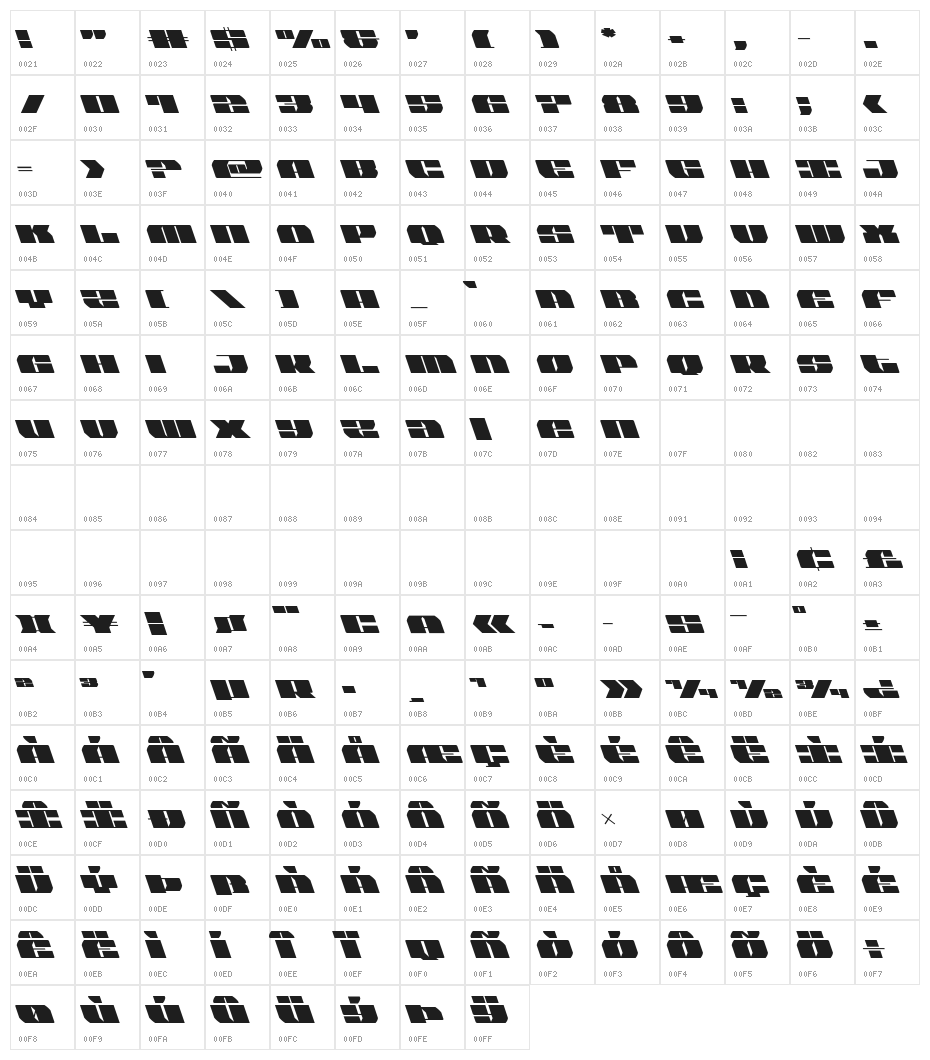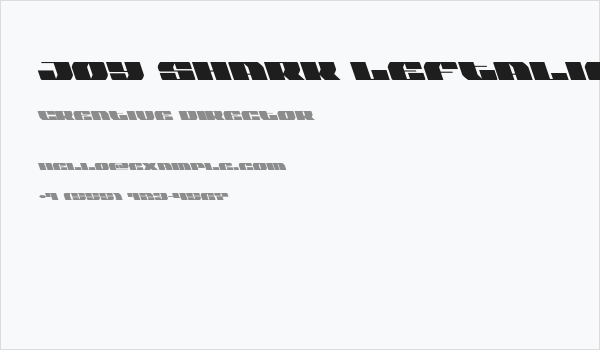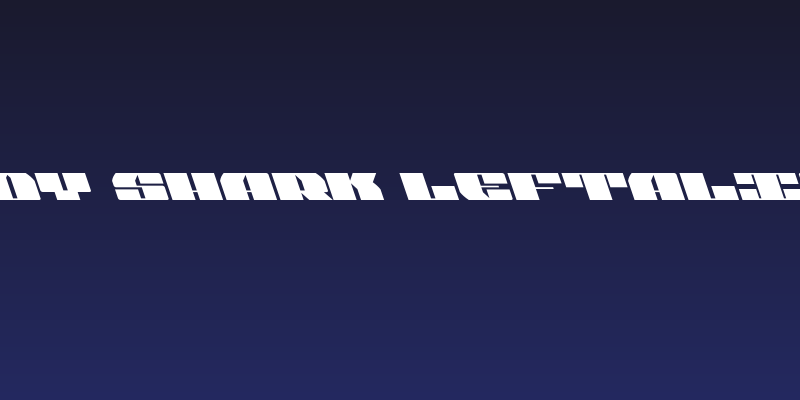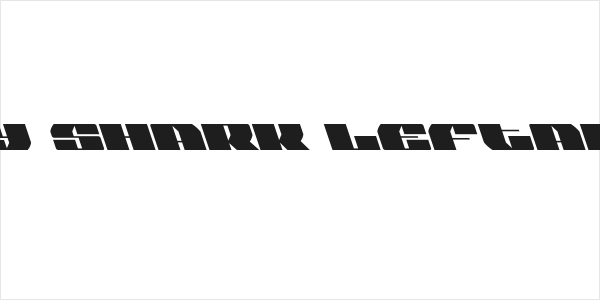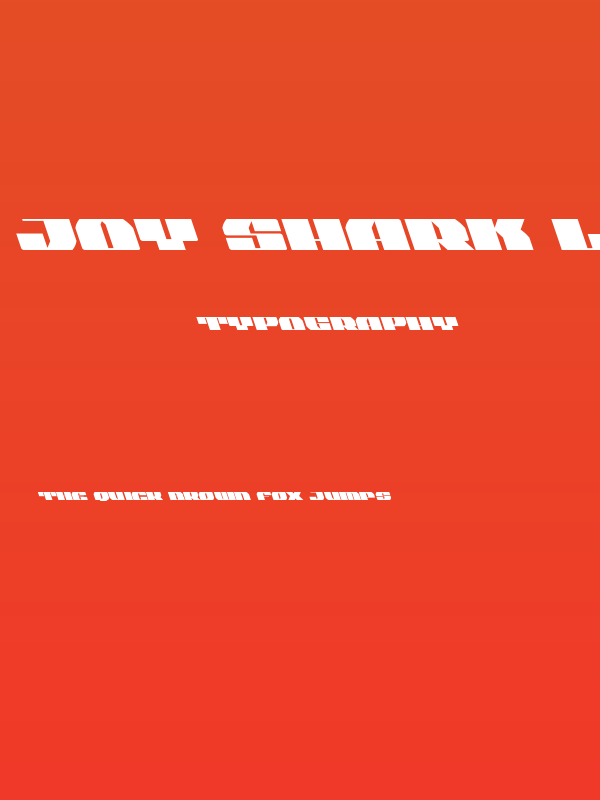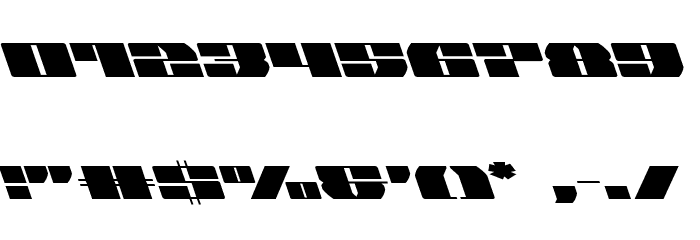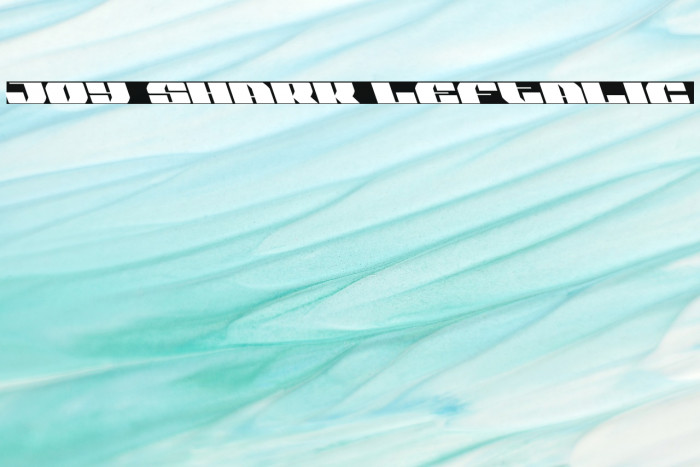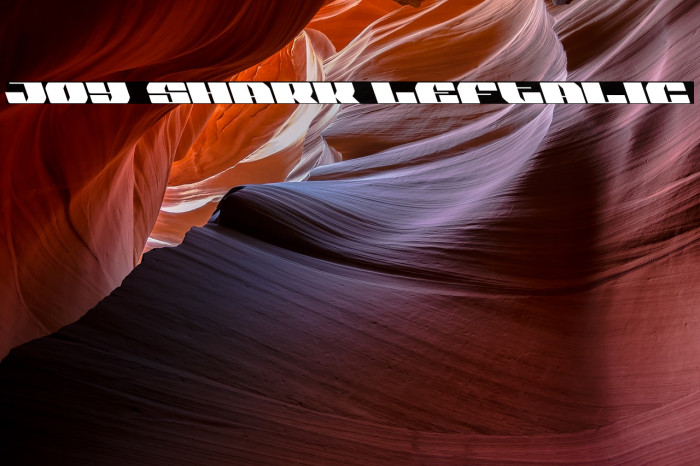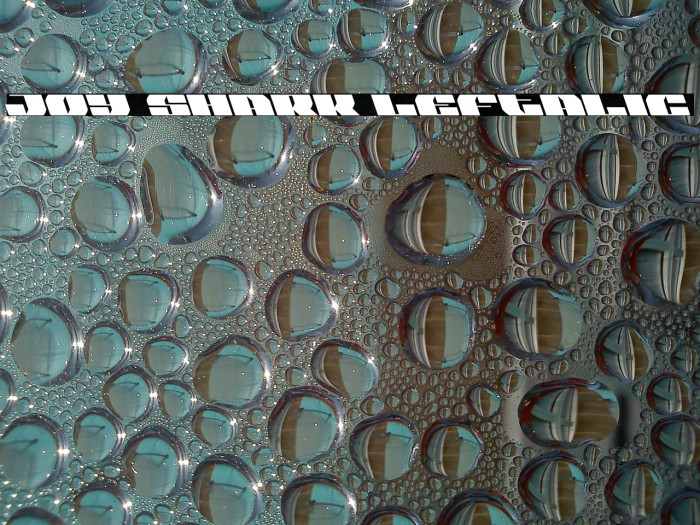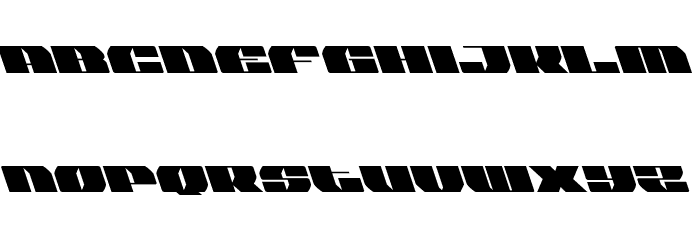
Joy Shark Leftalic Font
This font features a bold, geometric design with a distinct slanted orientation, giving it a dynamic and modern appearance. The characters are constructed with sharp angles and straight lines, creating a sense of movement and energy. The uppercase and lowercase letters maintain a consistent style, with the lowercase slightly smaller but equally bold. Numbers and special characters follow the same design principles, ensuring uniformity across all glyphs. The font's unique style makes it stand out, ideal for projects that require a strong visual impact.